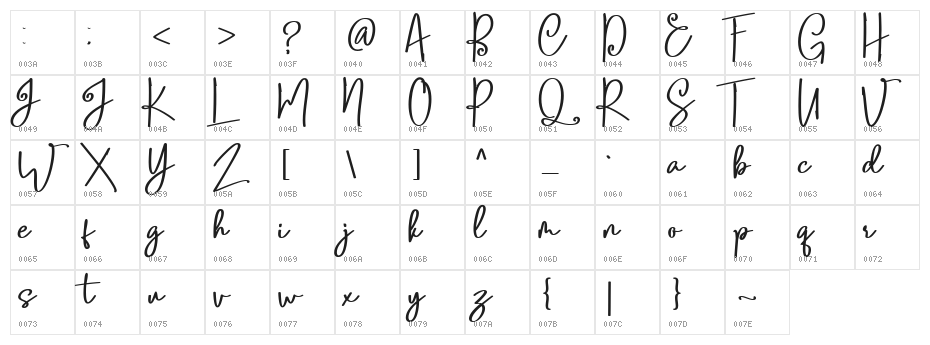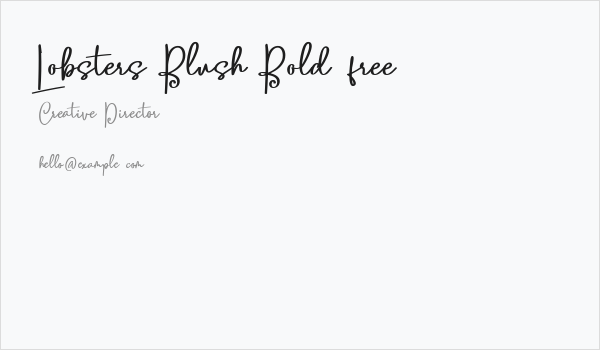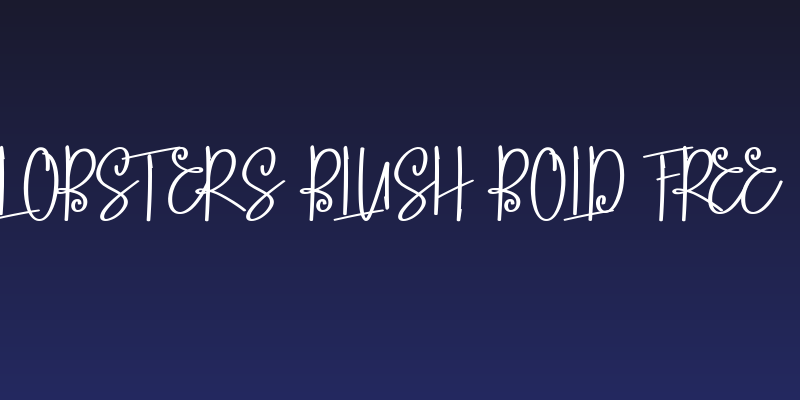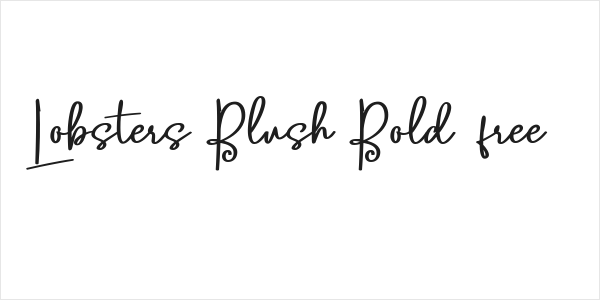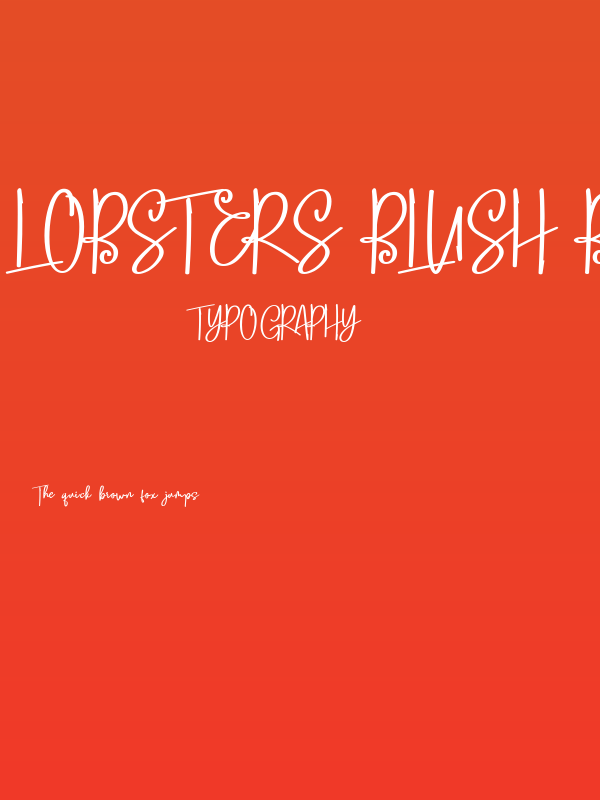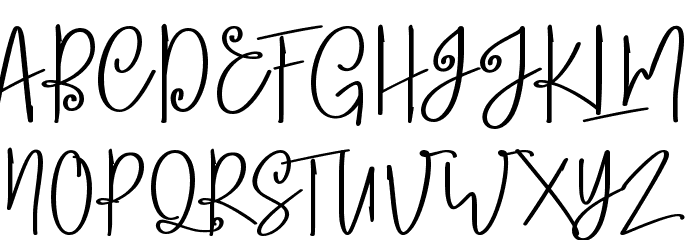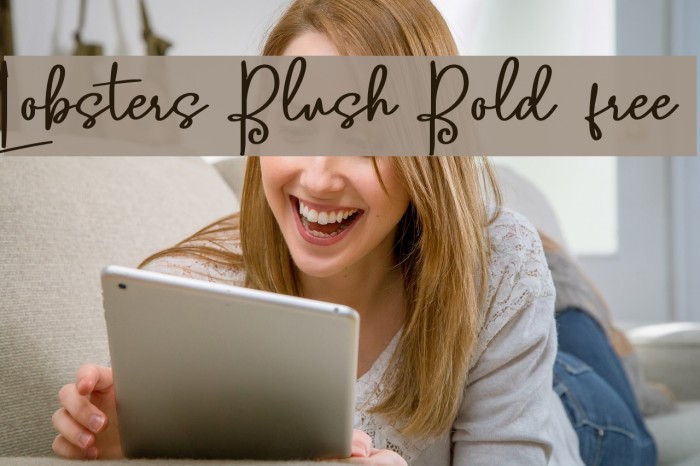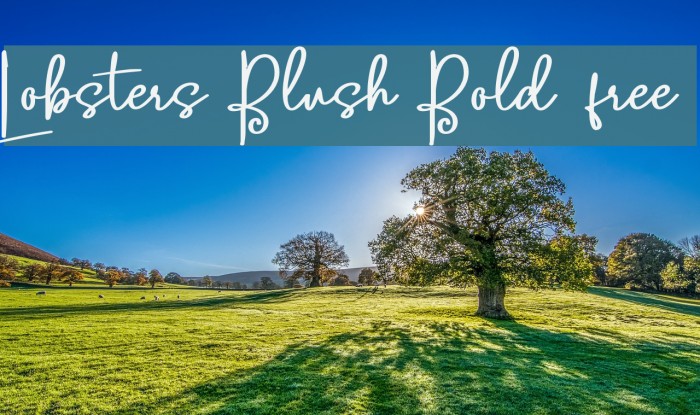
Lobsters Blush Bold free Font
Lobsters Blush Bold free Description
This font features a playful and whimsical script style with a handwritten feel. The uppercase letters are characterized by their tall, slender forms and elegant loops, giving them a sense of movement and flair. The lowercase letters maintain a consistent flow, with some characters featuring unique flourishes that add to the font's charm. The overall design is bold and expressive, making it suitable for creative and artistic projects. The font's strokes are smooth and consistent, providing a polished look that balances between casual and sophisticated.
| Use Case | Logos, Headlines, Invitations |
| Proposed Projects | Ideal for invitations, greeting cards, branding, and creative projects requiring a personal touch. |